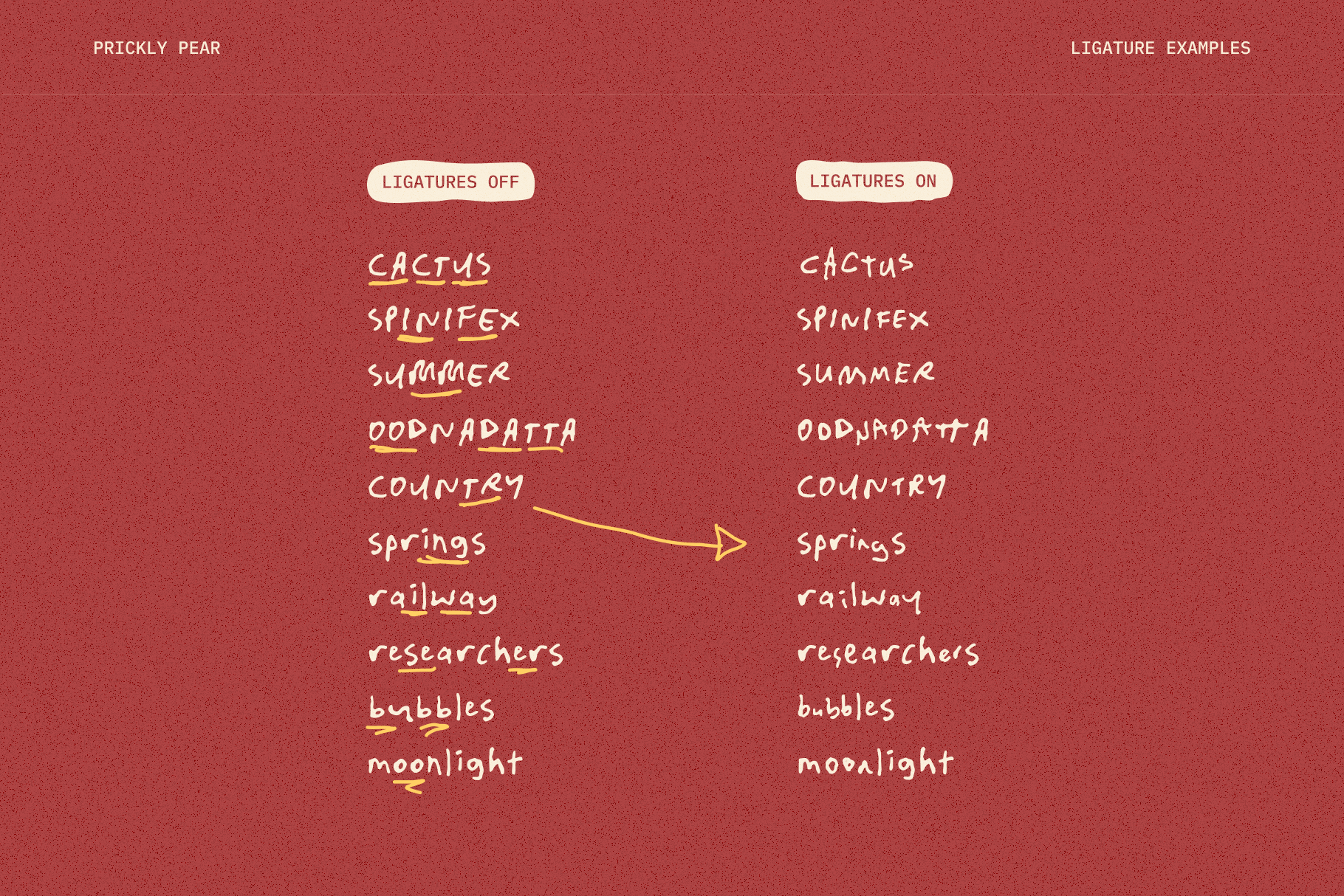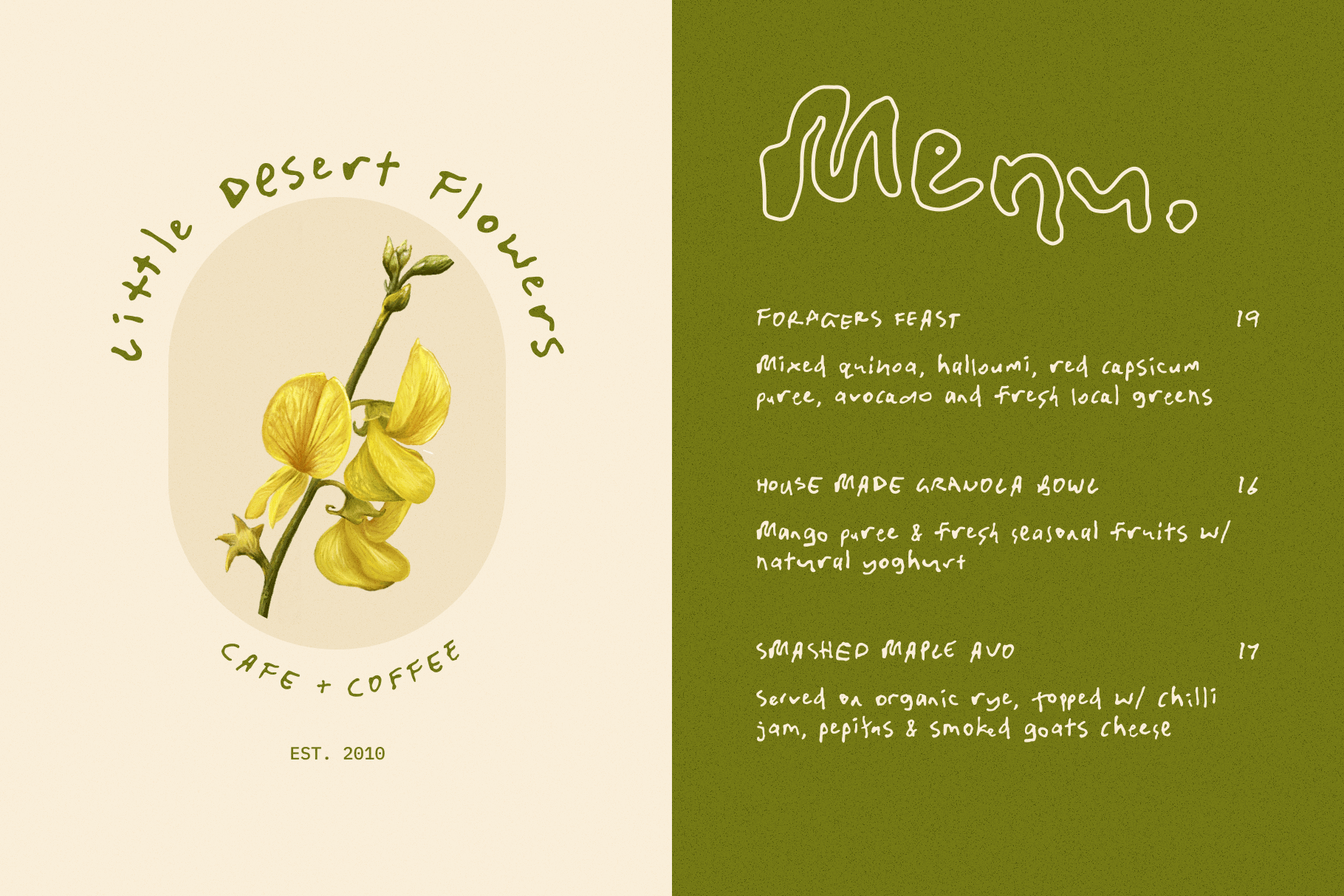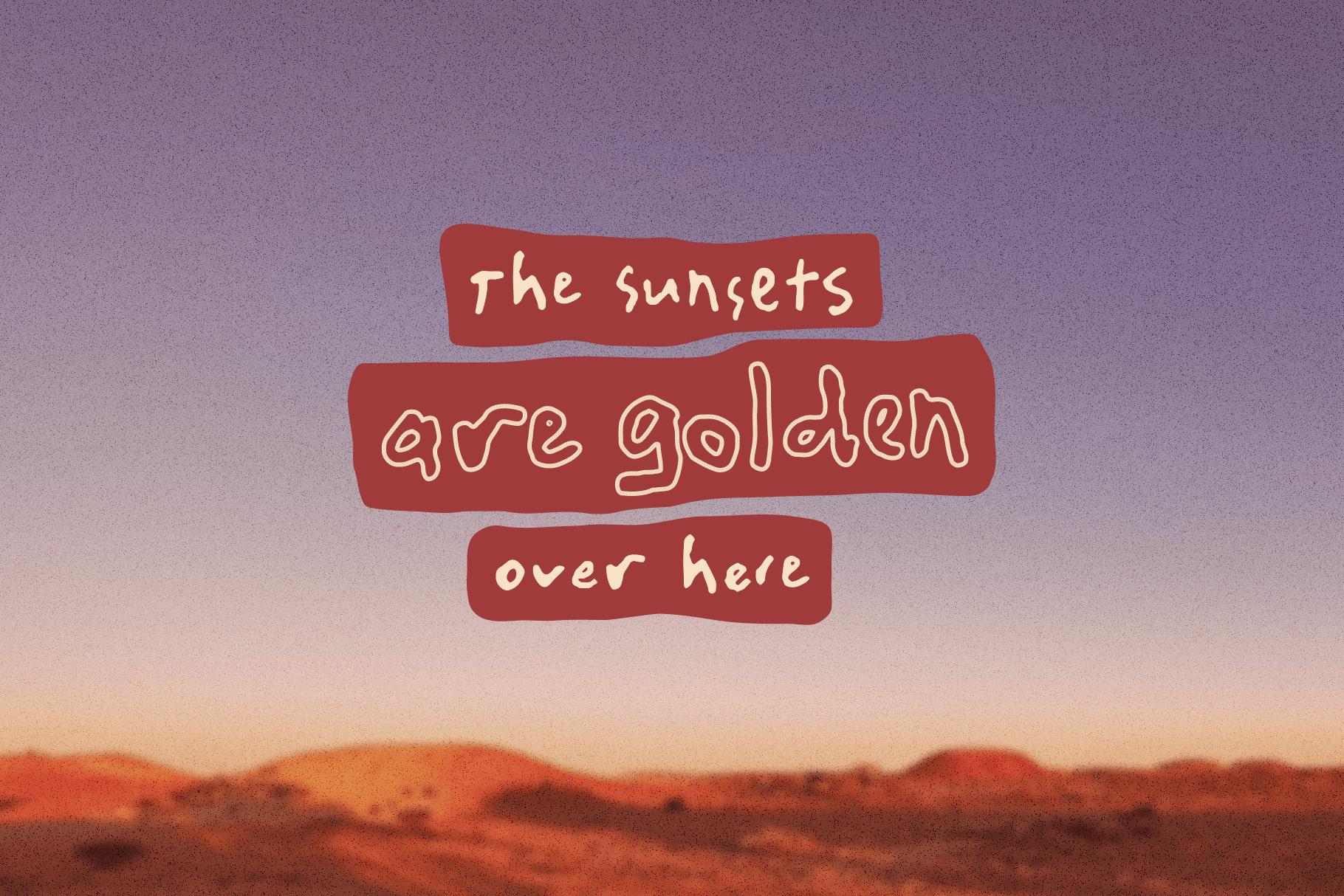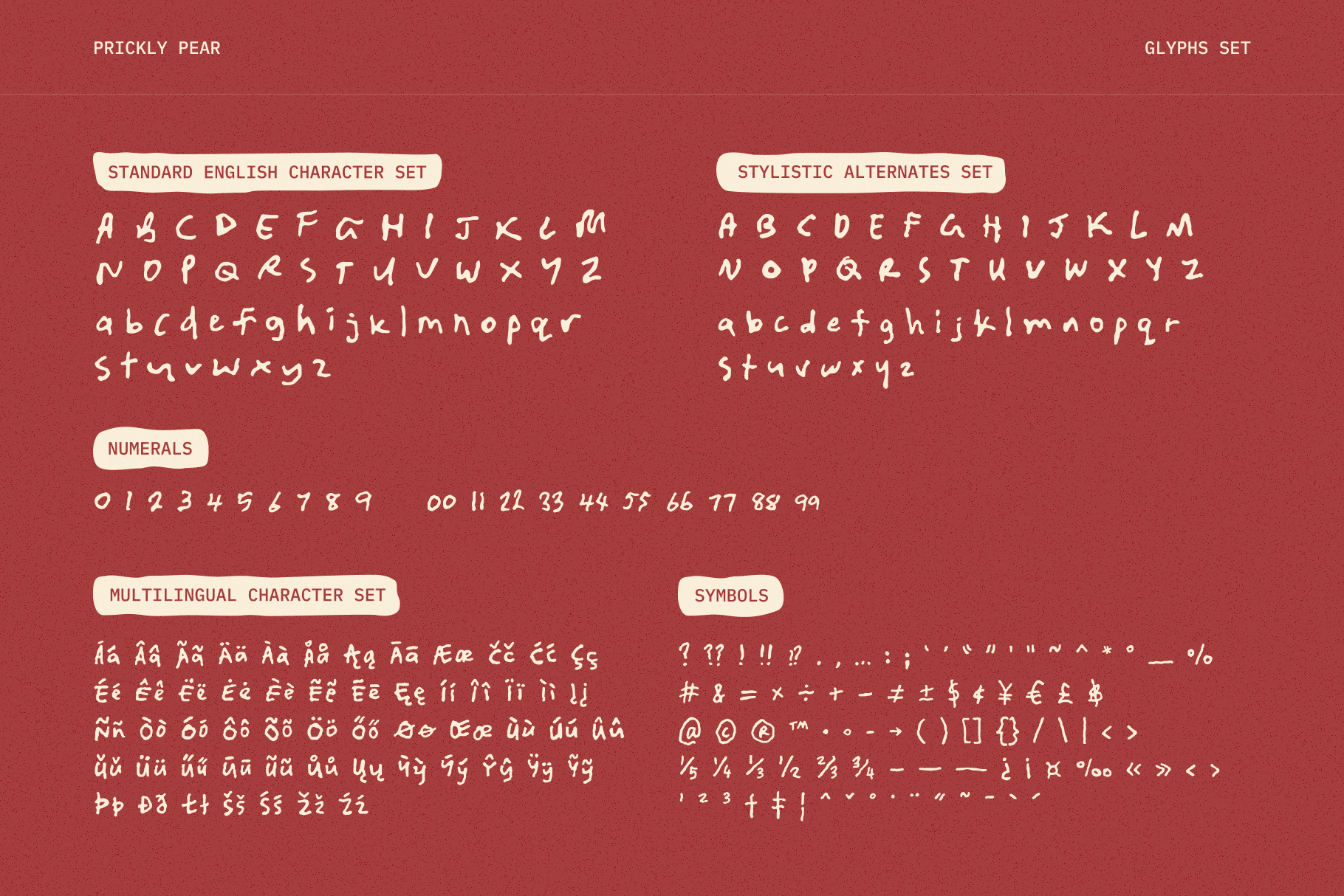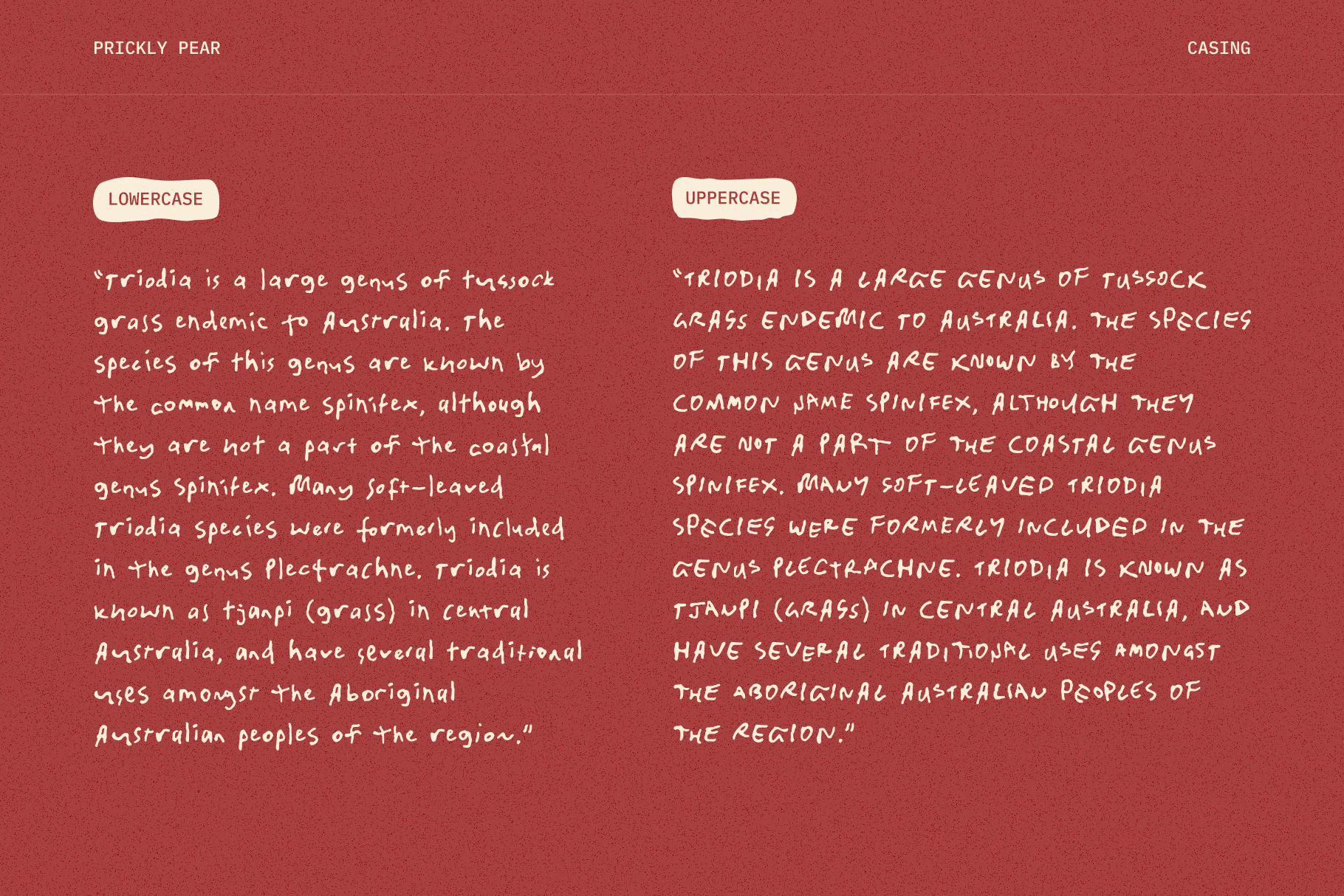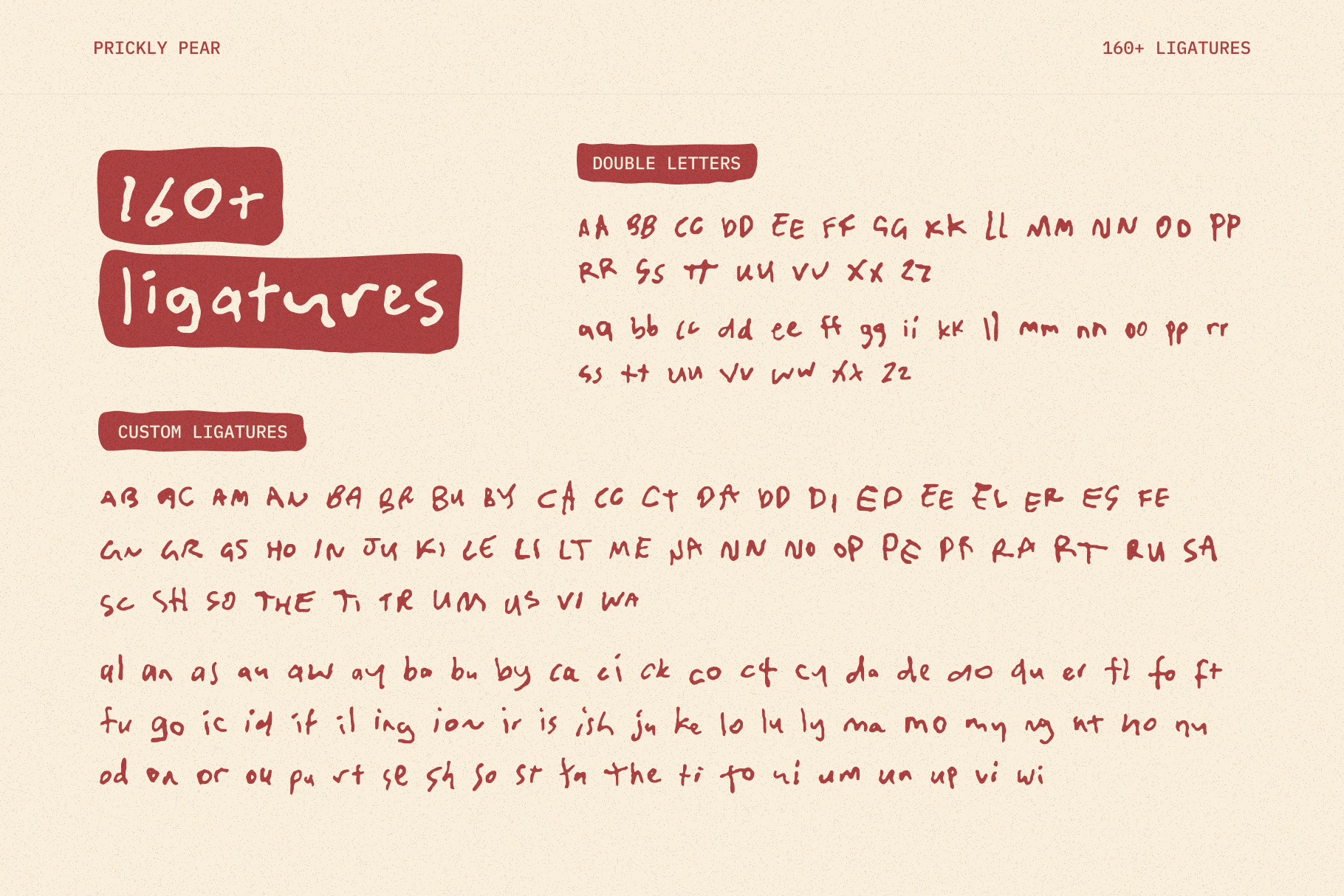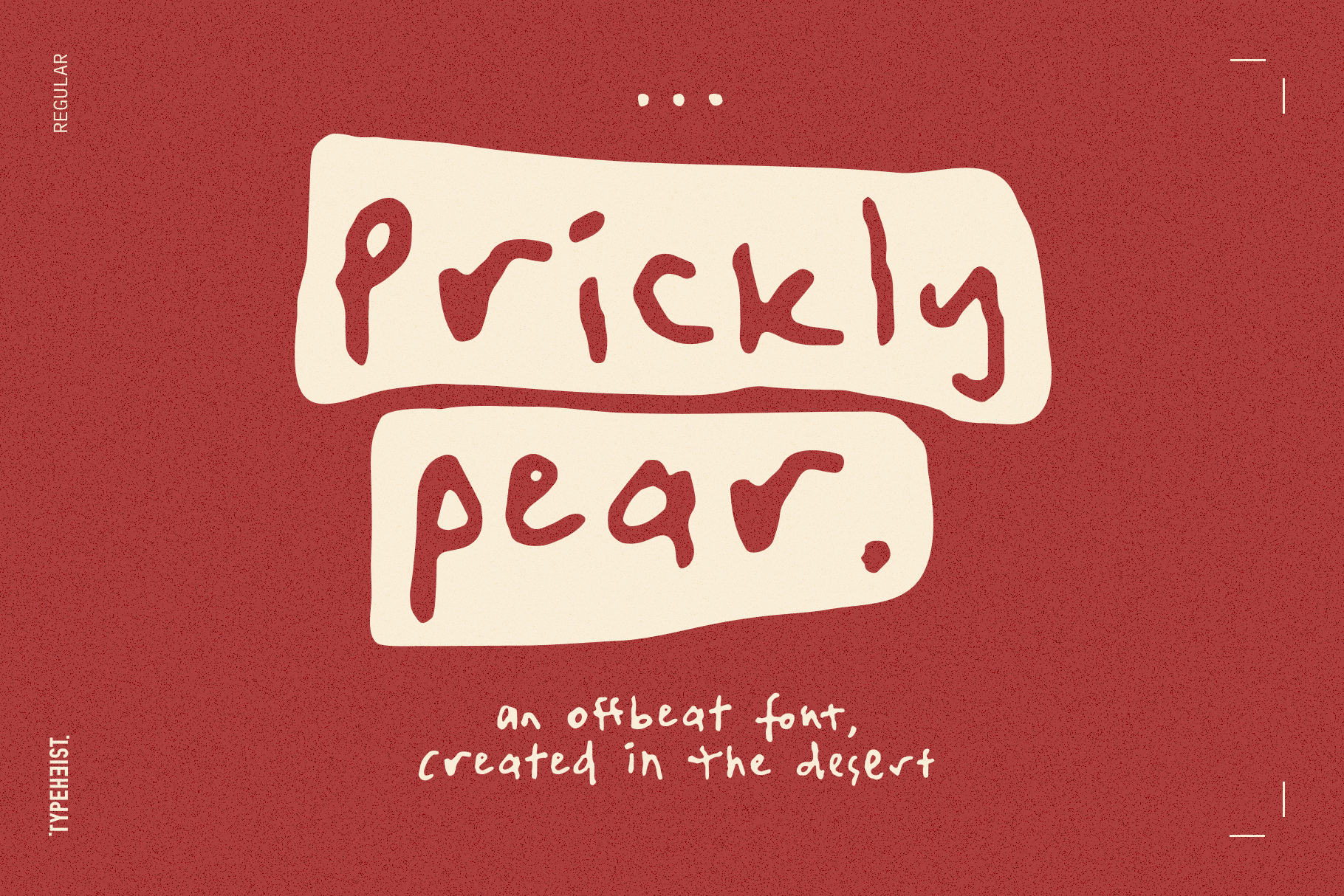
Meet Prickly Pear.
A messy handwritten font with a unique backstory.
Prickly Pear was created on a roadtrip to the Simpson Desert. Scribbled in a moving car, somewhere in the middle of Australia. The result? A rugged, offbeat typeface that mimics the wild terrain it was created on.
Its 160+ ligatures give it a naturally messy feel, packed with character and unexpected variation. It’s got uppercase and lowercase, multilingual support and just the right amount of chaos.
At the mercy of every bump, hump and hole in the road, this font is as rough and realistic as its conception. A unique and messy handwriting font reminiscent of the rugged landscape; it’ll be perfect for that design project where you need a little raw authenticity.
Prickly Pear has a comprehensive character set of over 160 custom ligature combinations and 56 multi-lingual characters.